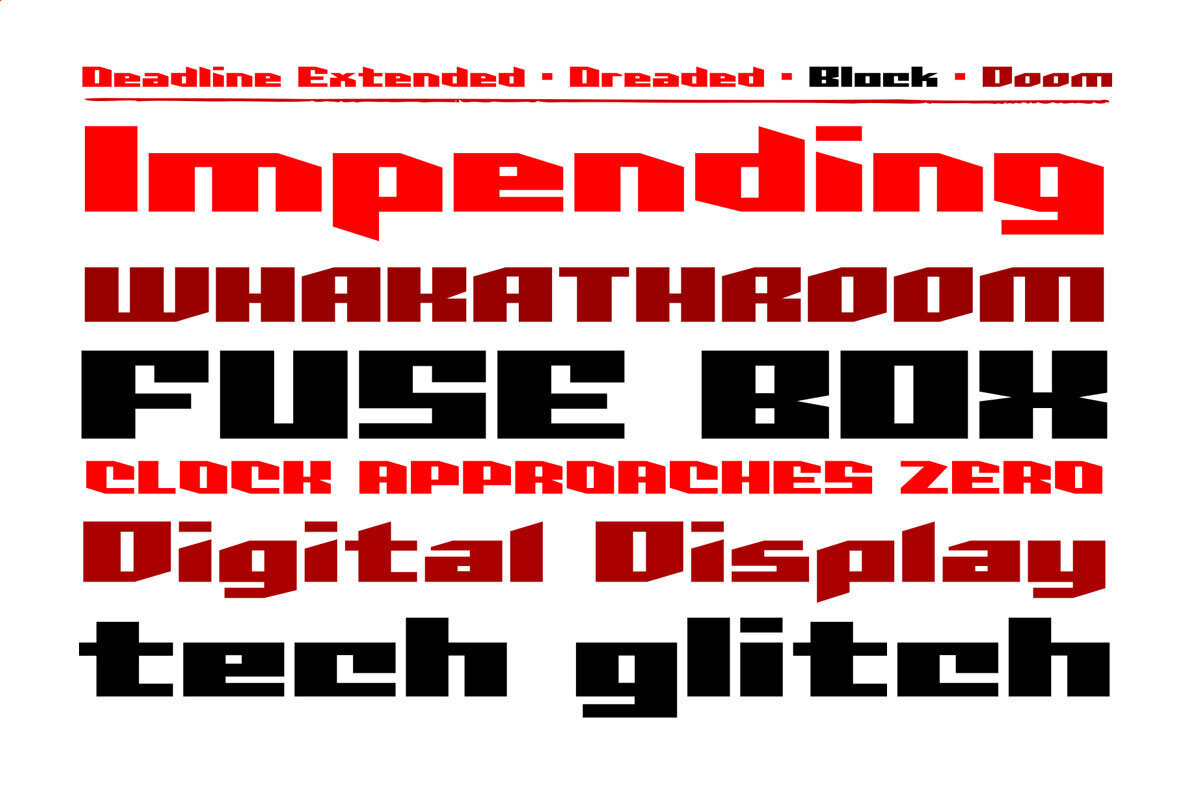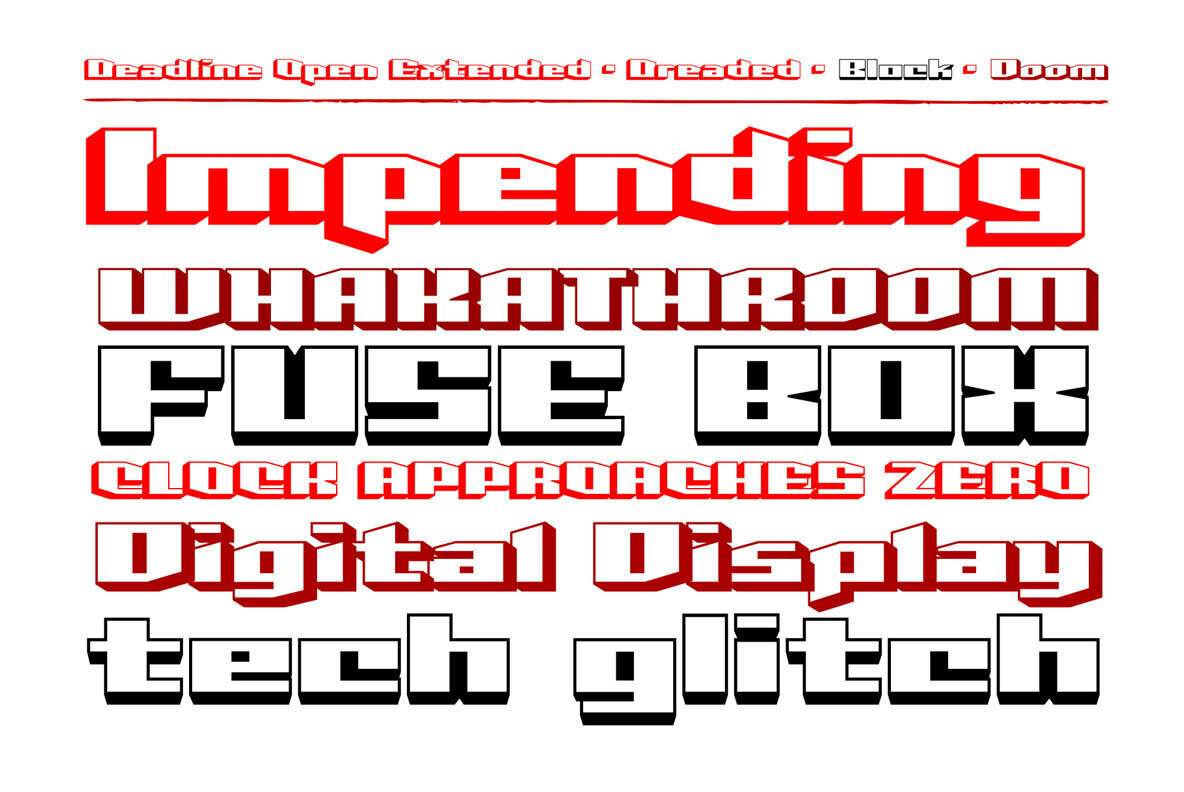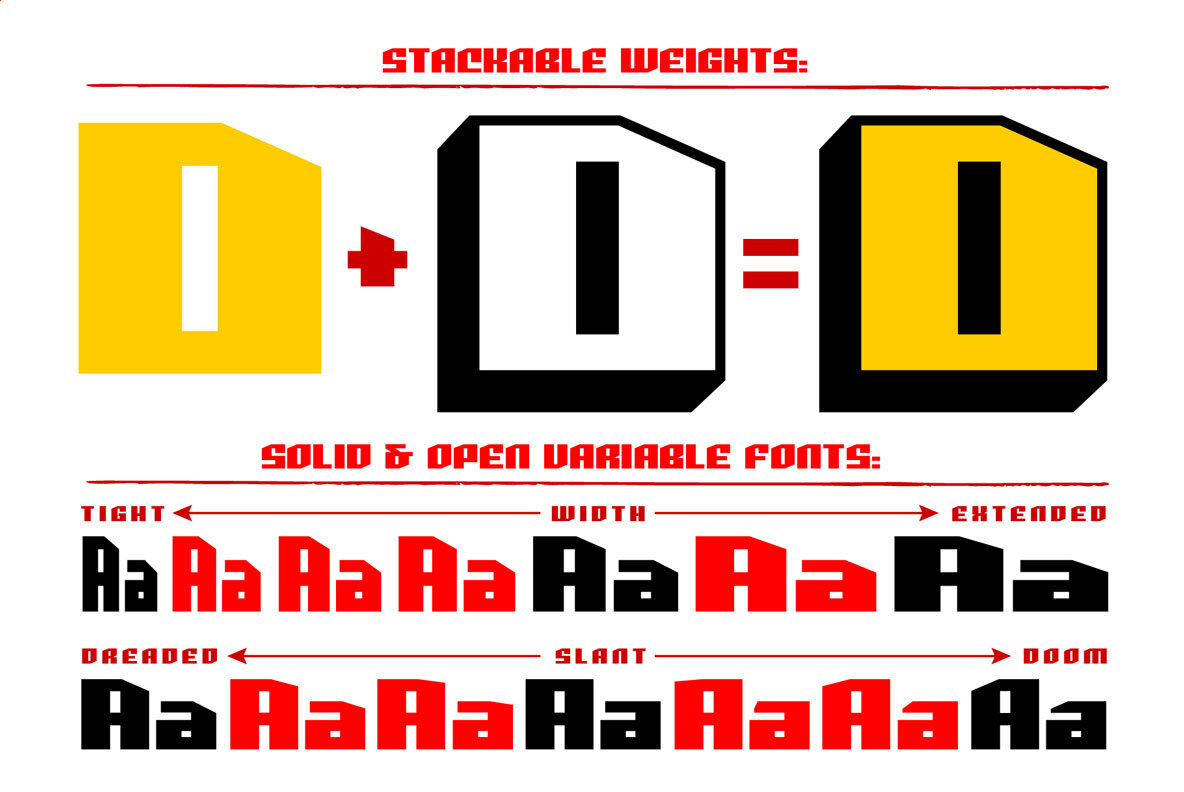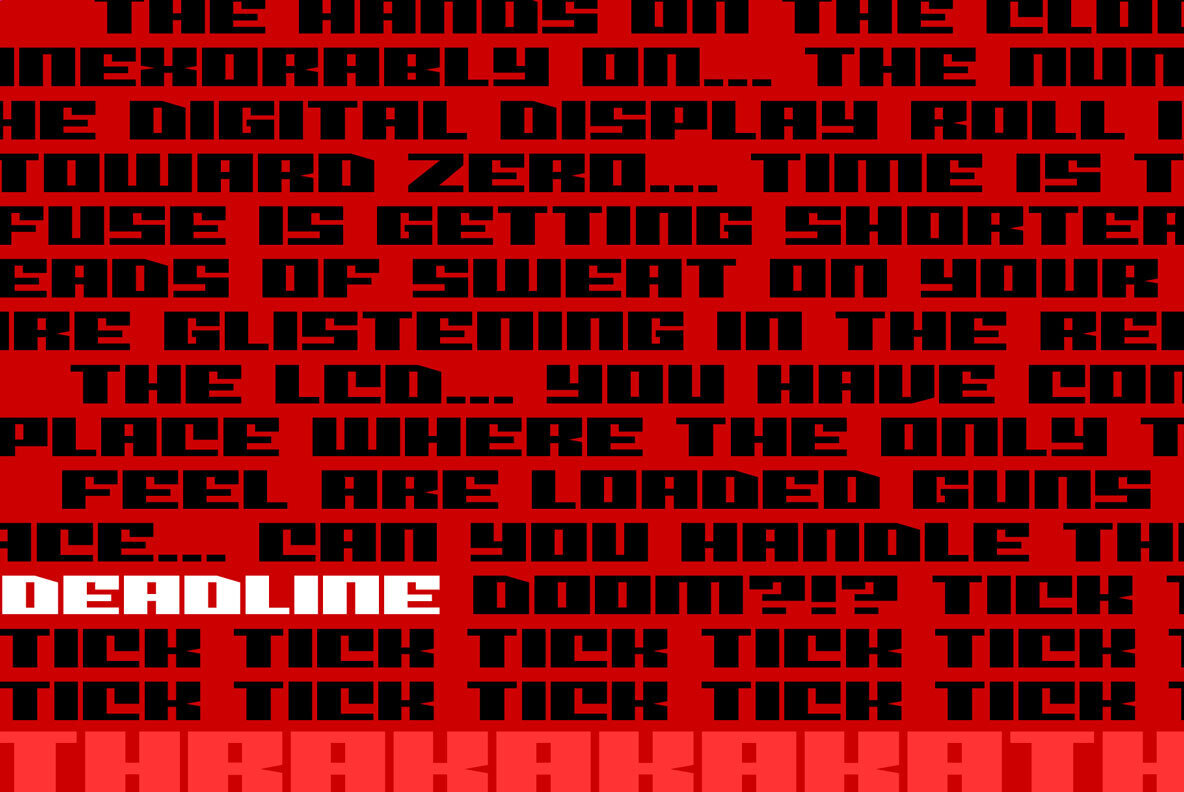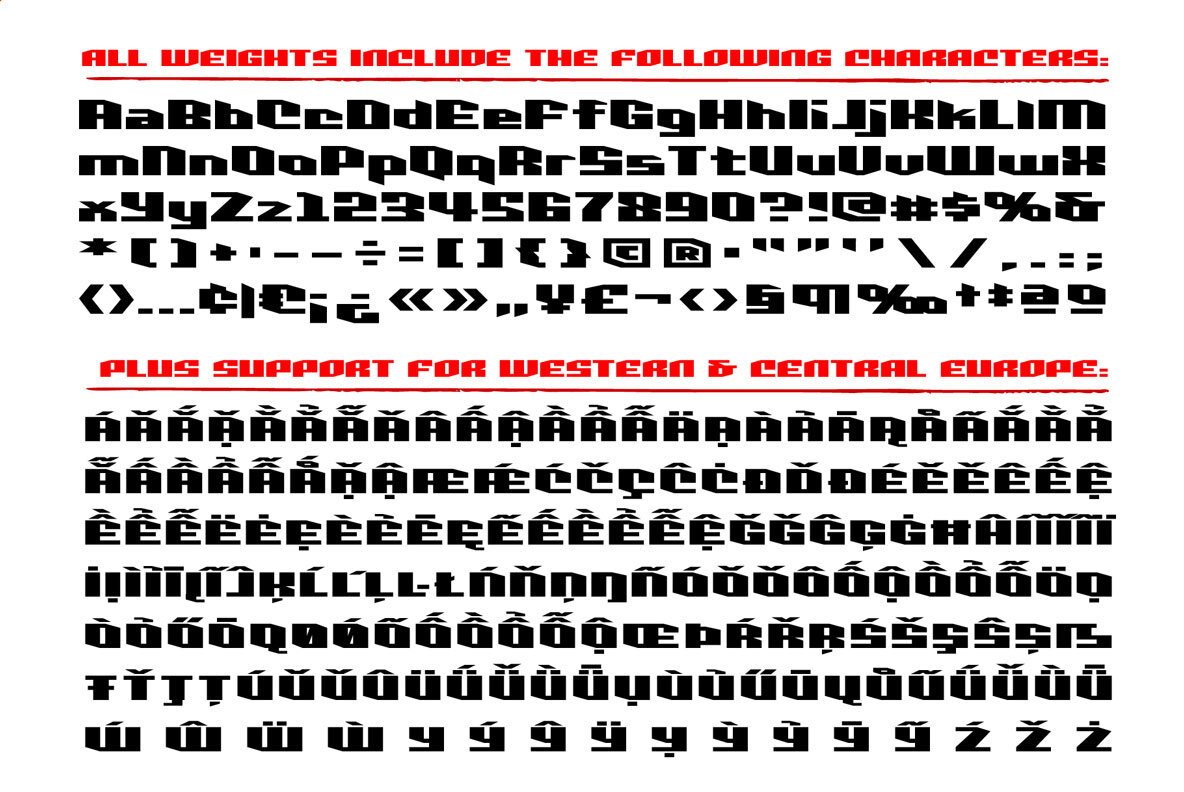
Deadline Extended Font
The hands on the clock tick inexorably on... the numbers on the digital display roll inevitably toward zero... time is tight, the fuse is getting shorter and the beads of sweat on your forehead are glistening in the red light of the LCD... you have come to a place where the only thing you feel are loaded guns in your face... can YOU handle the DREADED DEADLINE DOOM?!? TICK TICK TICK THRAKAKAKATHOOM!
Oops.
Deadline Extended features six static weights, including the new nearly square "Block", each with complete Western & Central European language support. Use the Solid & Open Variable fonts to access unlimited width and angle options.